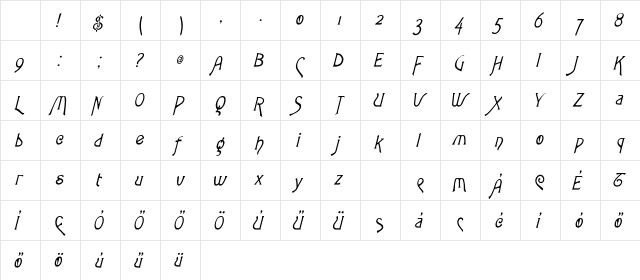
Toulouse HU is a composed and adaptable typeface that performs quietly and consistently across a wide range of design contexts. The slanted form adds forward momentum and visual energy.